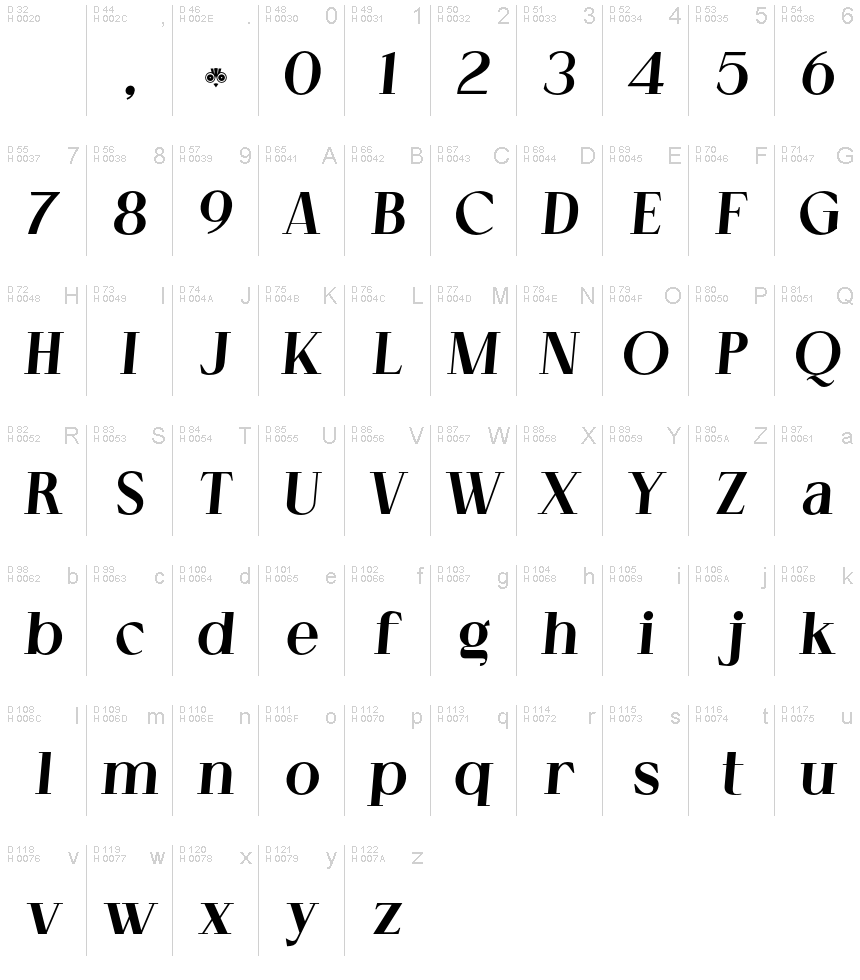
Cellofy Black Italic font from the Cellofy family, crafted by the Owlking Project, is a striking serif typeface that exudes elegance and modernity. With its bold appearance and italic flair, this free font is perfect for making headlines stand out or adding a sophisticated touch to branding materials. The pronounced curves and refined serifs give it an air of authority and style, making it ideal for projects that demand attention.
Whether you're designing logos, invitations, or editorial layouts, Cellofy Black Italic offers versatility with a strong visual impact. Download this unique font today to elevate your design projects with its distinctive character and professionalism. Perfect for personal use, Cellofy Black Italic seamlessly blends classic serif tradition with contemporary aesthetics.